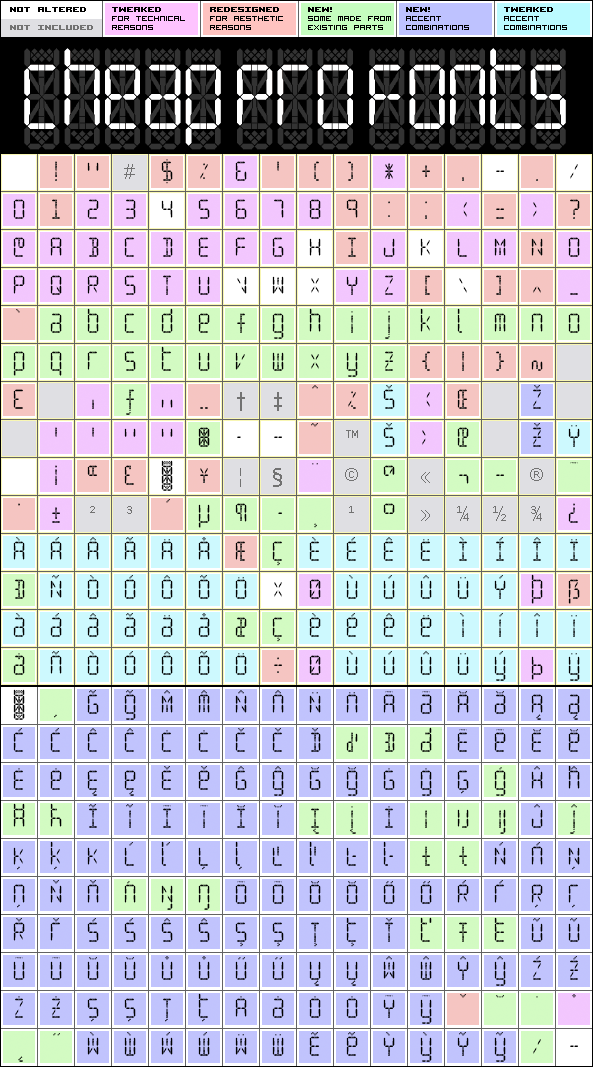
SF Digital Readout Pro
SF Digital Readout Pro by Derek Vogelpohl
361 glyphs!
(193 in original)
NO kernpairs!
font is monospaced
No font collection would be complete without an LCD/Quartz font ;)
I have divided some elements into more segments, so that they would be more flexible when creating "foreign" letterforms. Then I created a lowercase alphabet to match the existing uppercase letters! I have also redesigned those glyphs that did not slavishly follow the fixed elements. The result is a font were ALL glyphs are built from the defined elements - just like a proper LCD display!
SF Digital Readout Pro is a professionally reworked font that contains an extended character set for setting text in 65 languages requiring more than the basic A-Z!